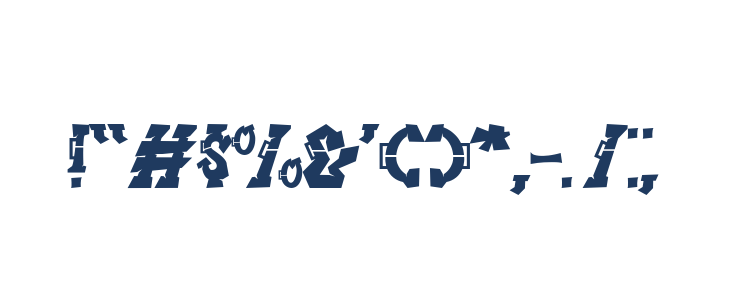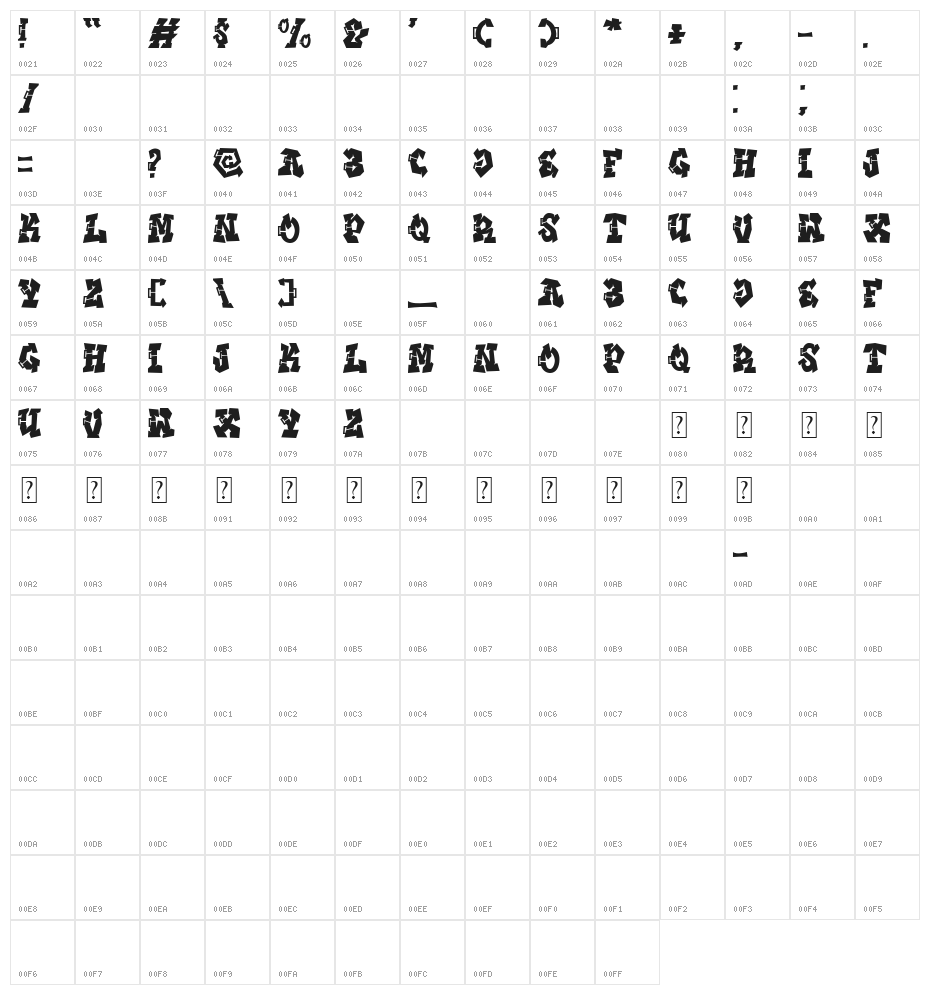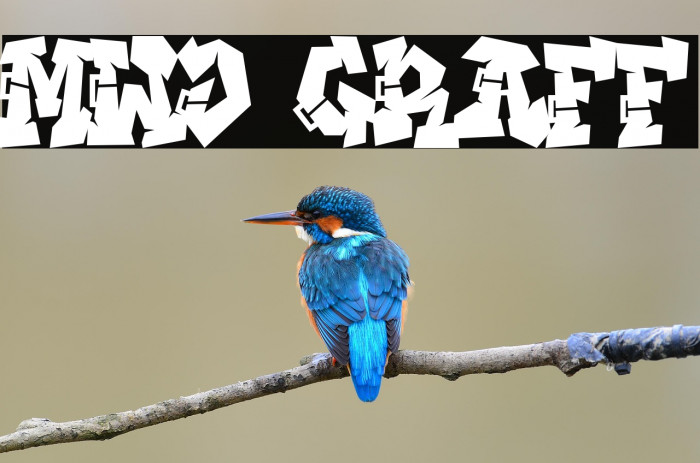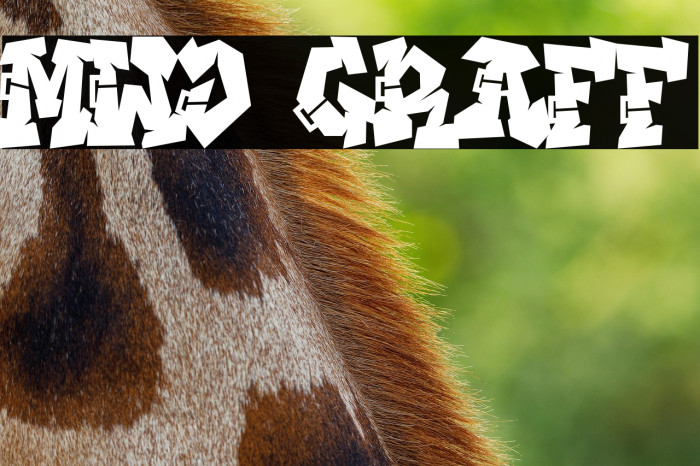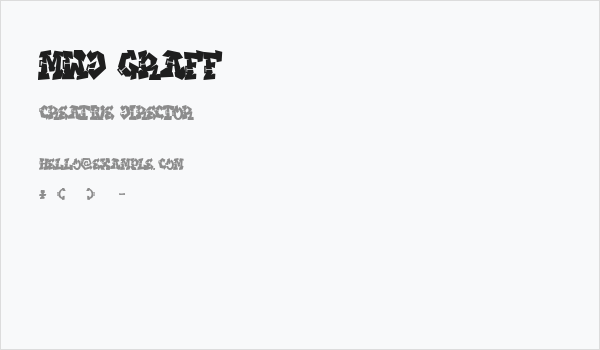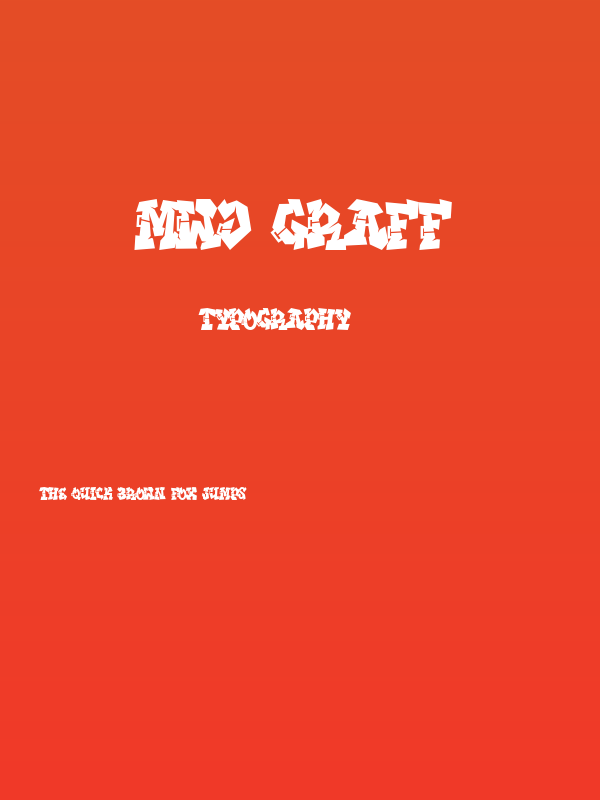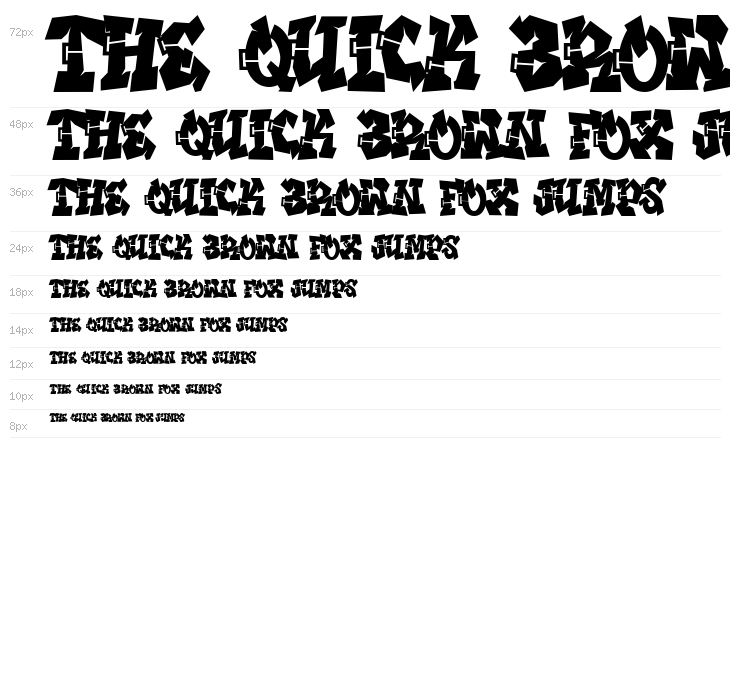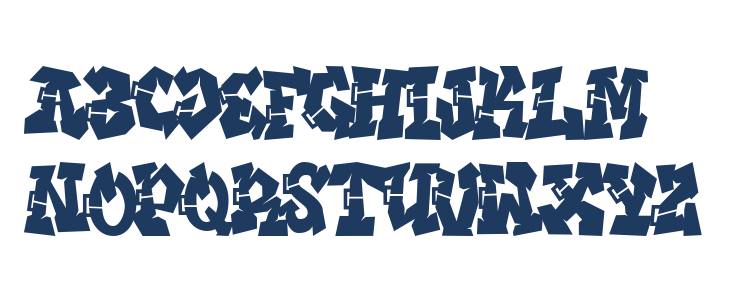
Mwd Graff Font
Mwd Graff Description
This font features a bold, graffiti-inspired style with sharp, angular edges and a dynamic, urban aesthetic. The letters are heavily stylized, resembling street art with a sense of movement and energy. Each character is uniquely designed with irregular shapes and a strong presence, making it ideal for eye-catching designs. The uppercase and lowercase letters maintain a consistent theme, while the numbers and special characters complement the overall look with similar artistic flair. The font's design is perfect for projects that require a modern, edgy, and rebellious touch.
| Overall Style | Modern, Urban, Edgy |
| Proposed Projects | Ideal for street art designs, urban-themed posters, music album covers, and edgy branding projects. |